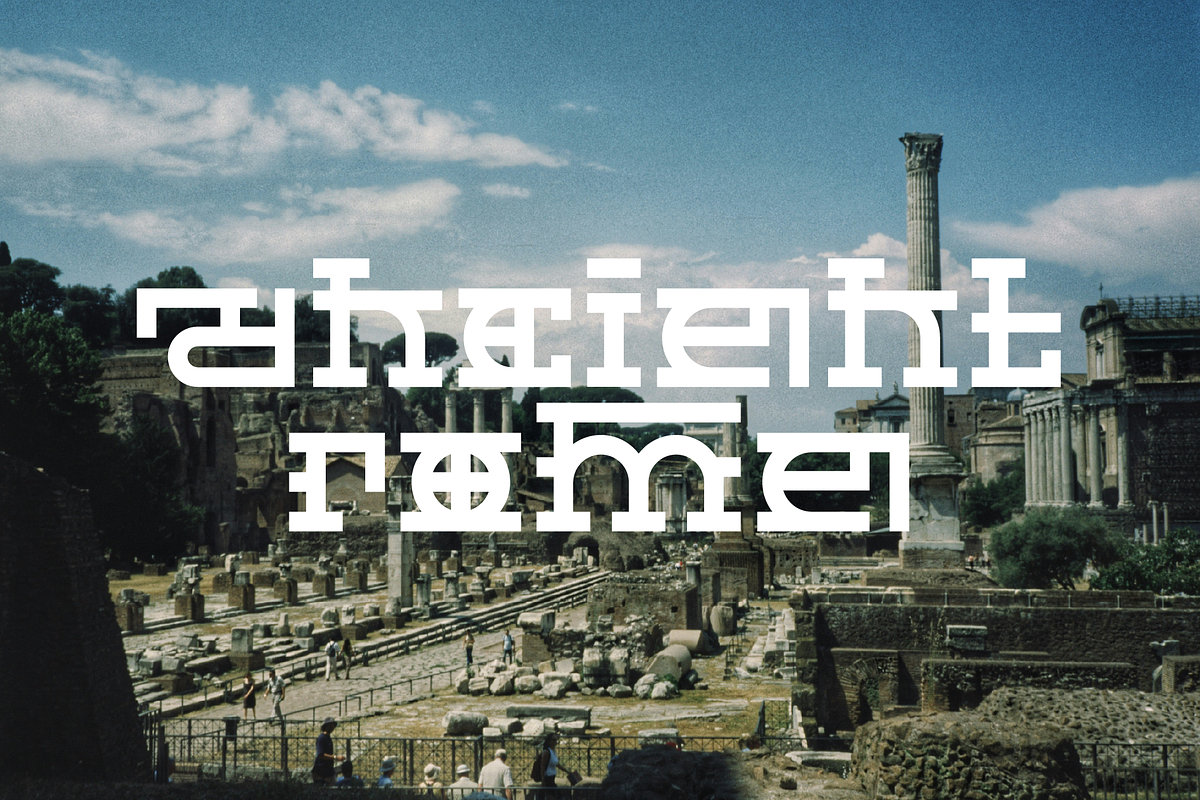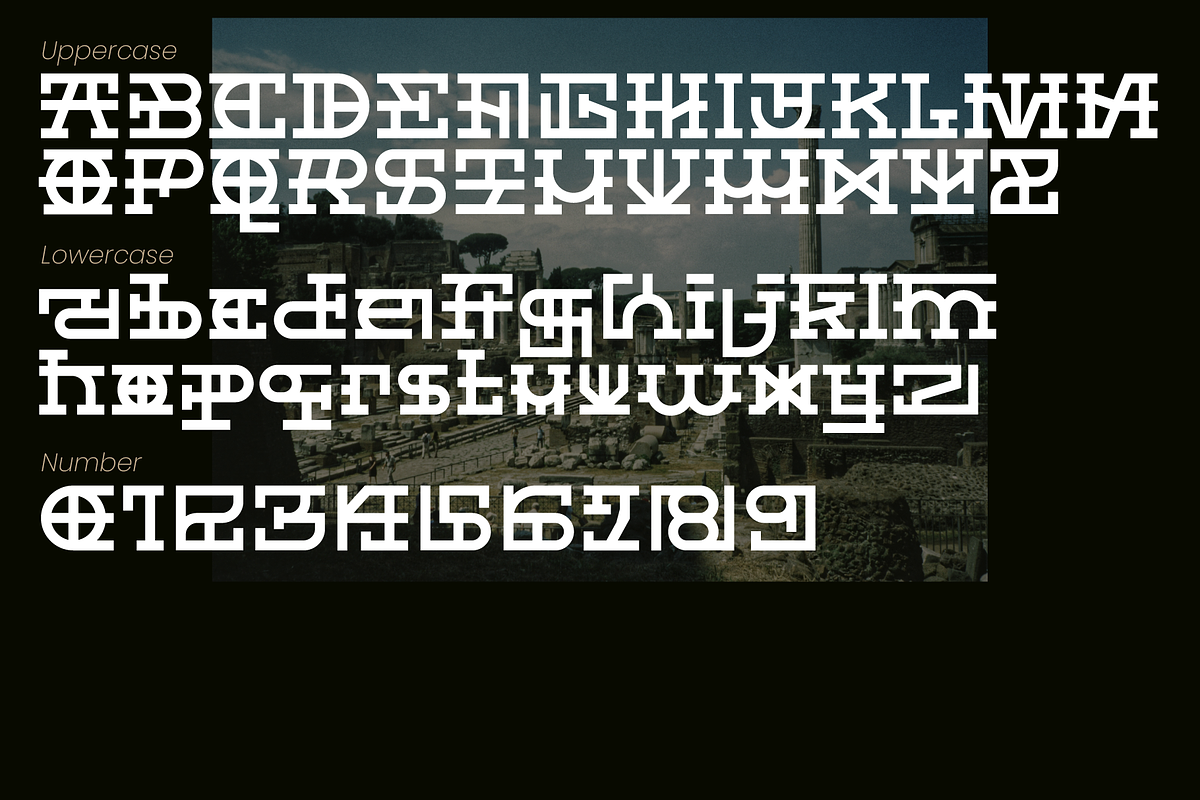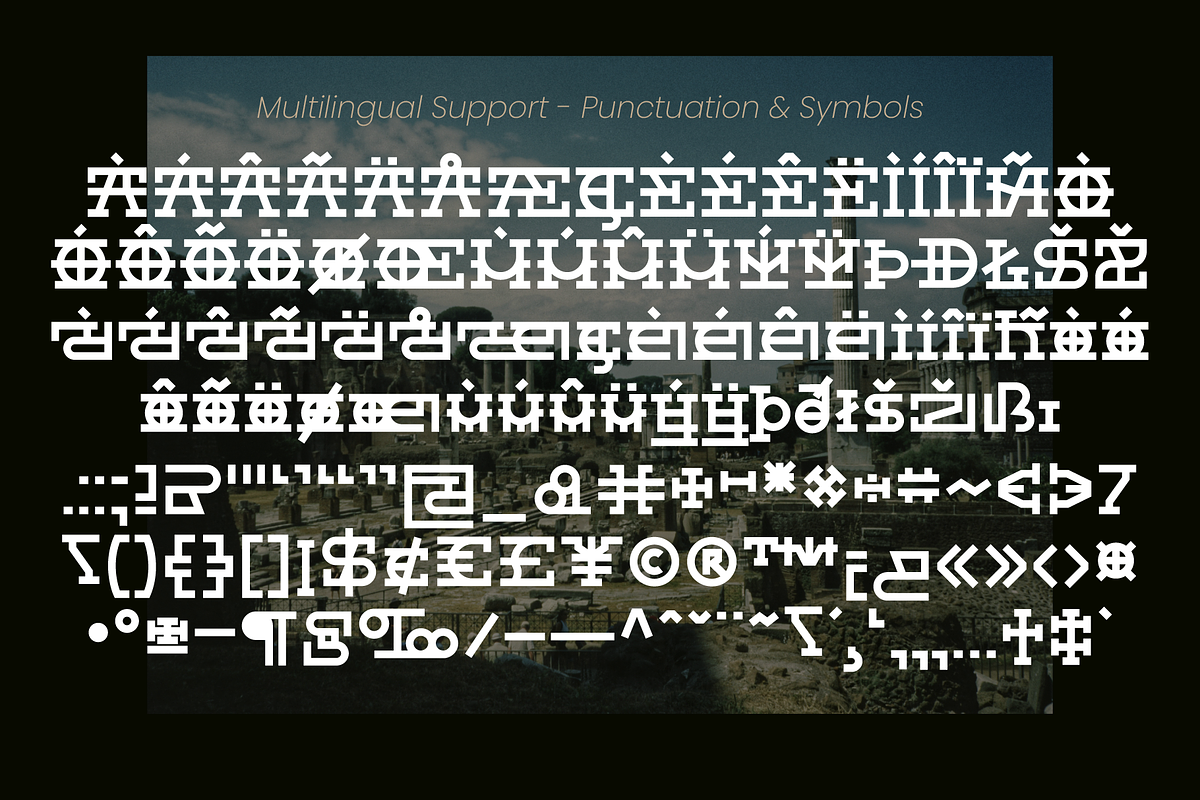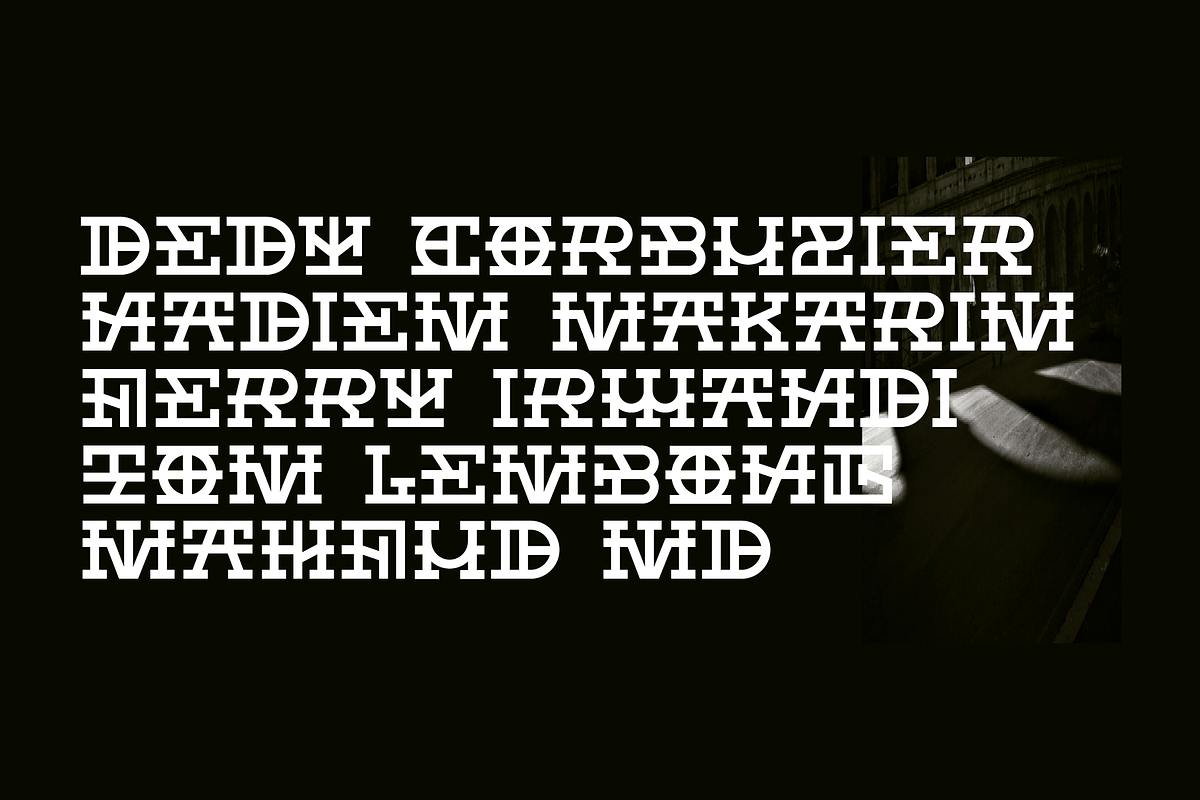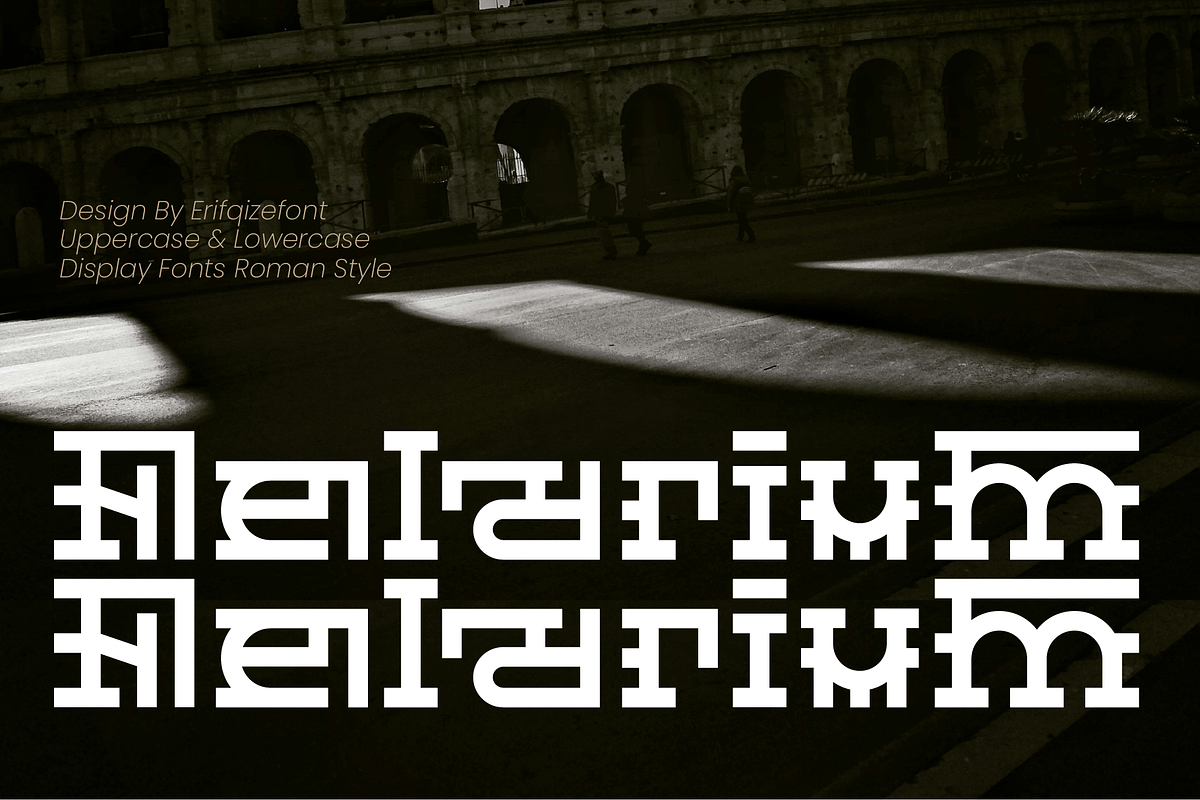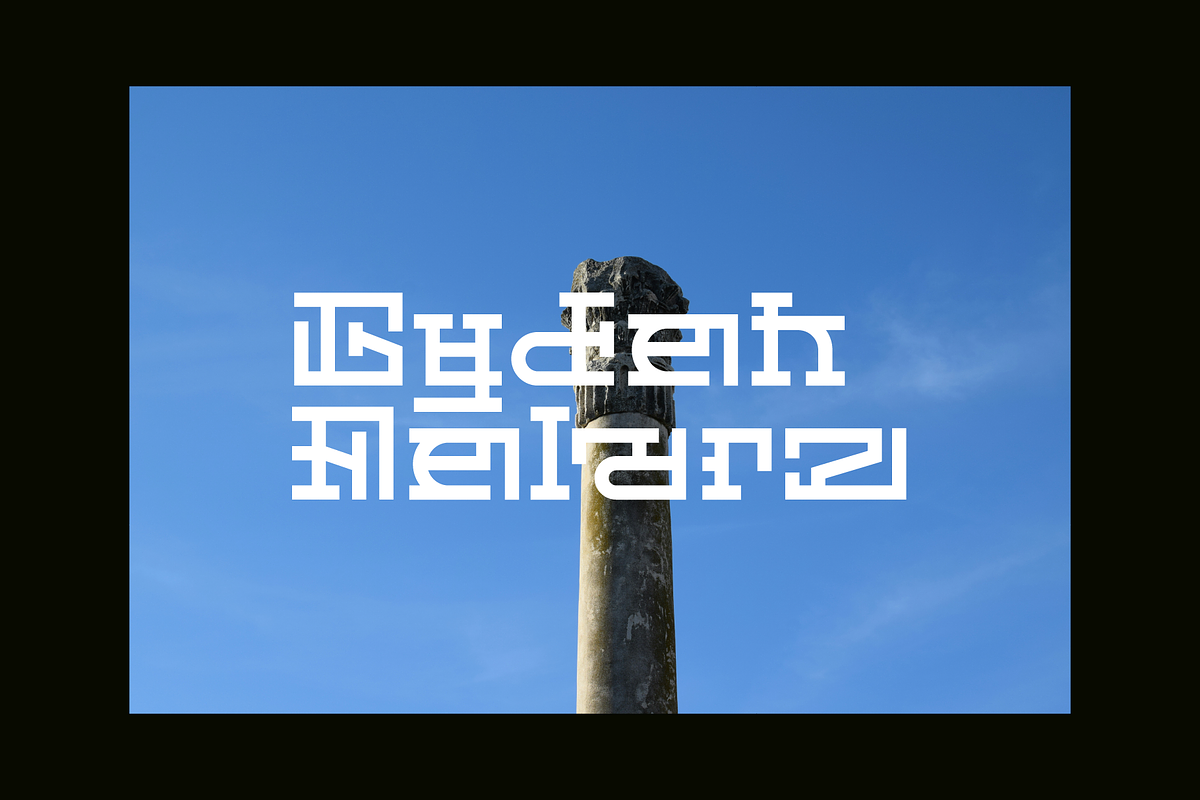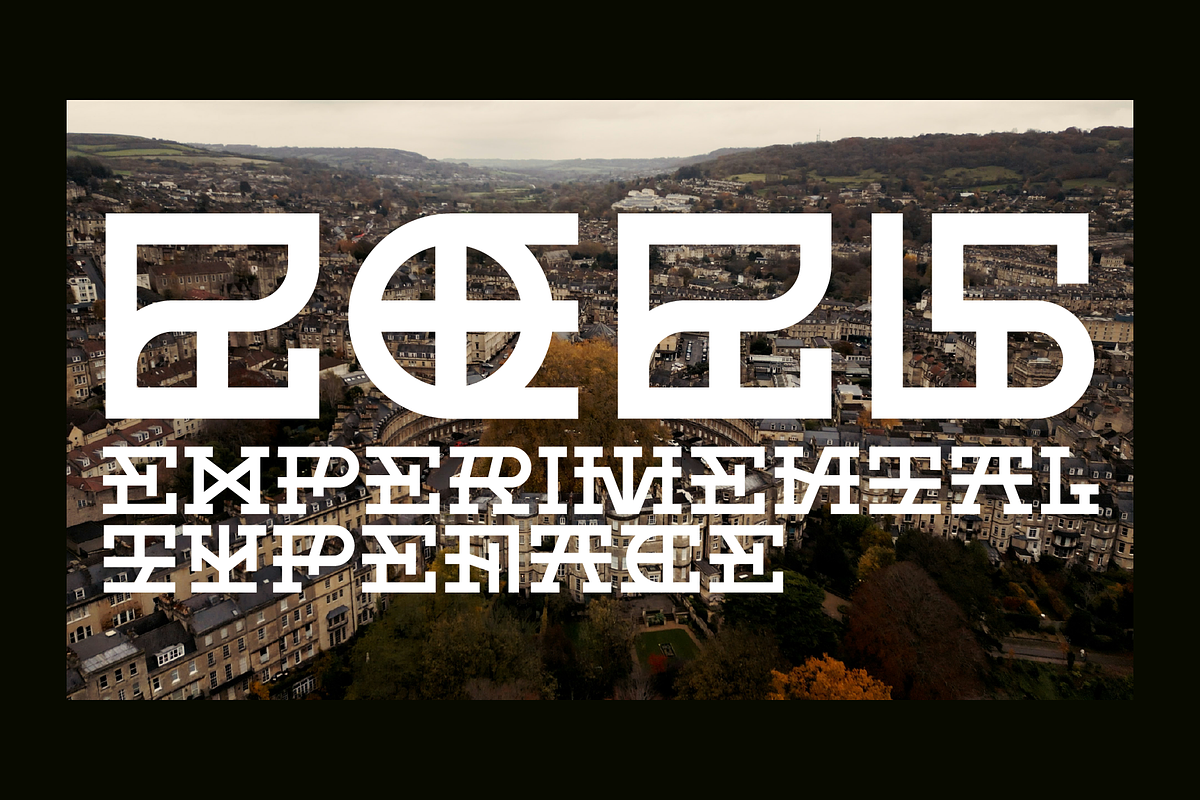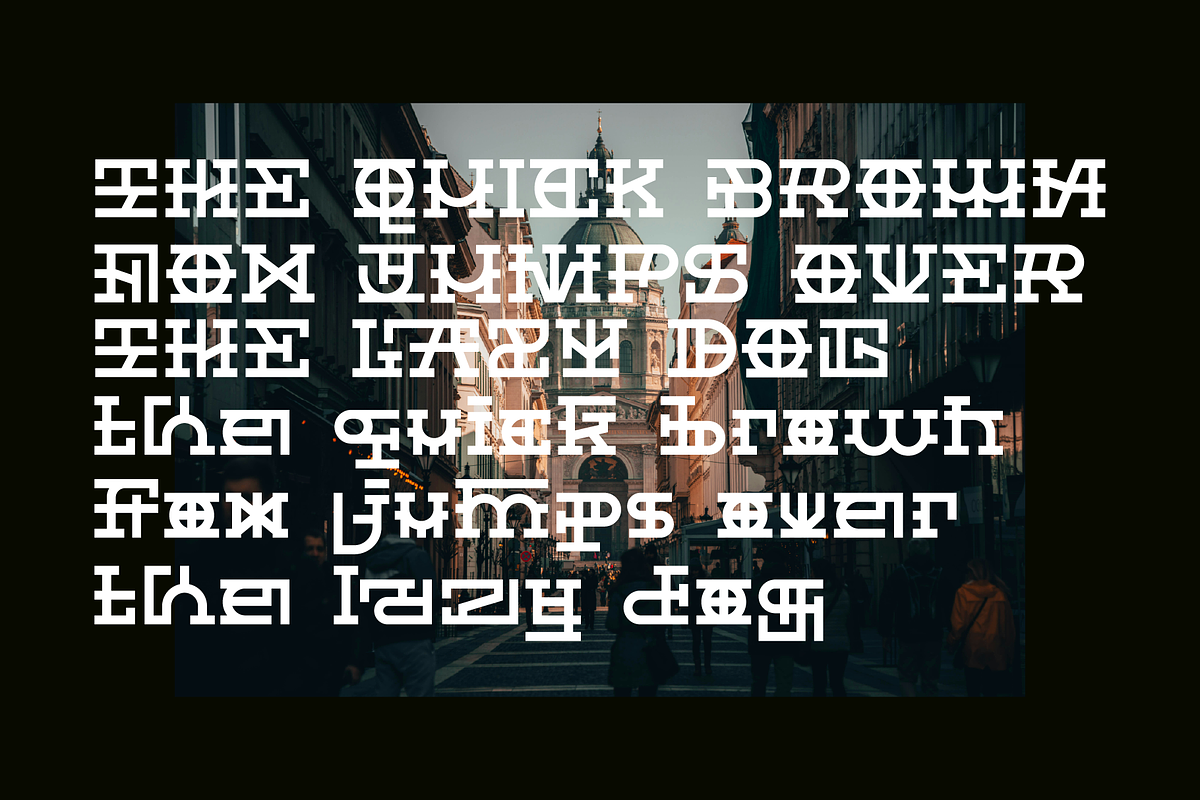
Felarium – Monumental Roman Display
Felarium – Monumental Roman Display Font Felarium is a display typeface inspired by the grandeur of Roman architecture and classical inscriptions. With bold, elegant letterforms and a timeless character, Felarium brings a monumental presence to any design.
Posters, book covers, and editorial projects with a historical or classical theme
Branding that needs to convey strength and sophistication
Luxury packaging, signage, and premium logos
Creative projects that seek a majestic and timeless Roman touch
Felarium supports multilingual characters, making it versatile for a wide range of design projects. Whether used for bold headlines or refined branding, this typeface captures the elegance and power of Roman heritage in a modern design context.